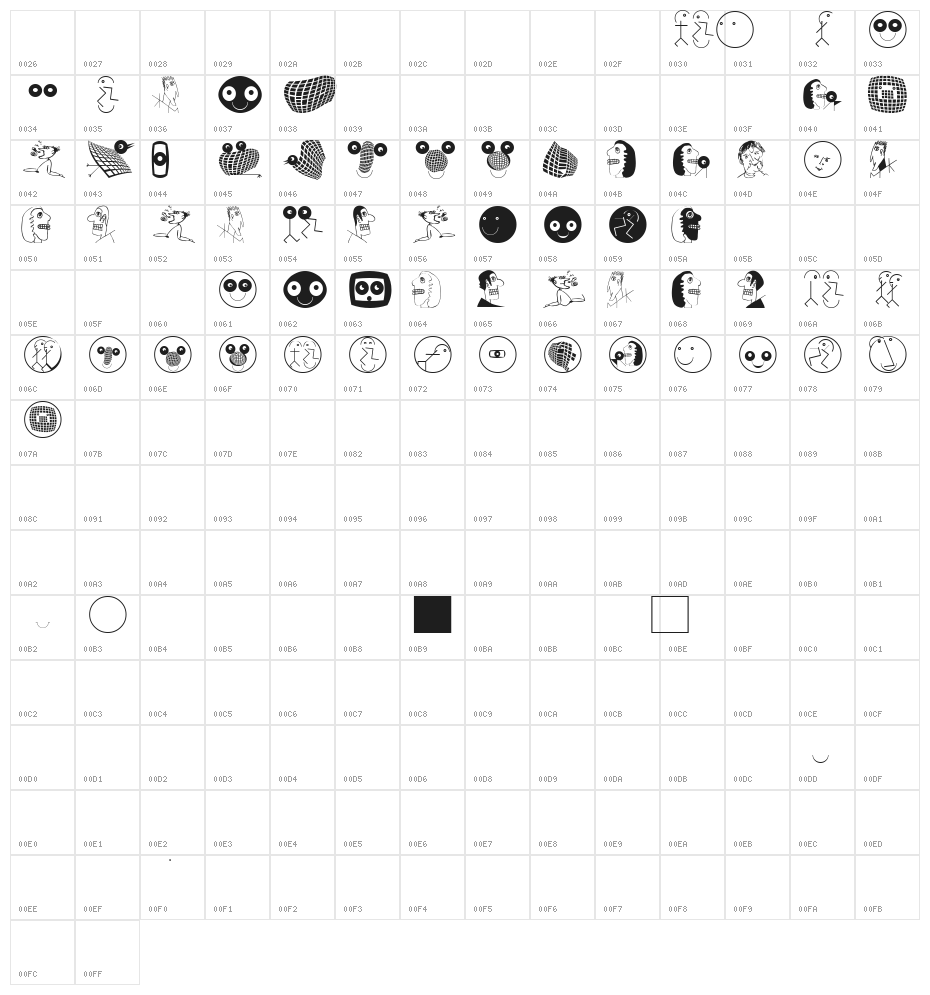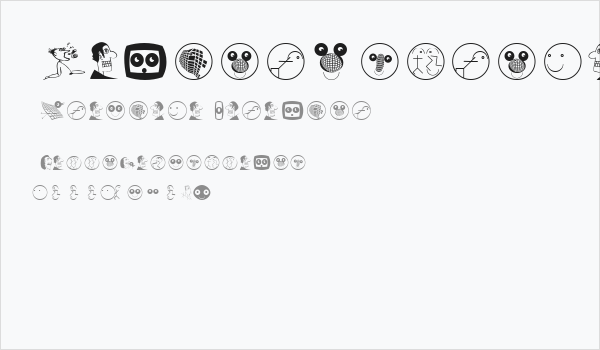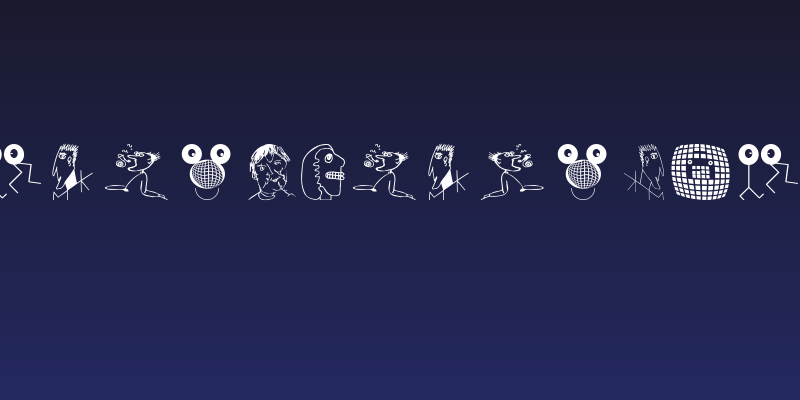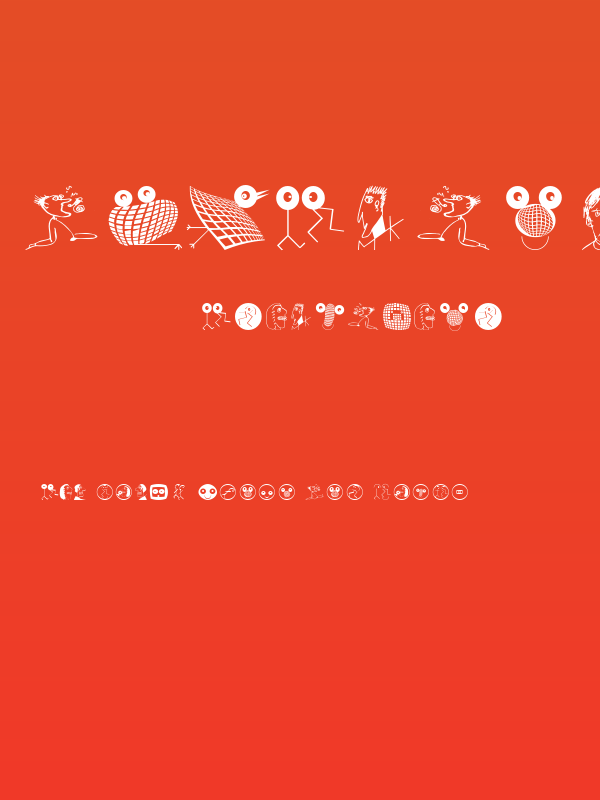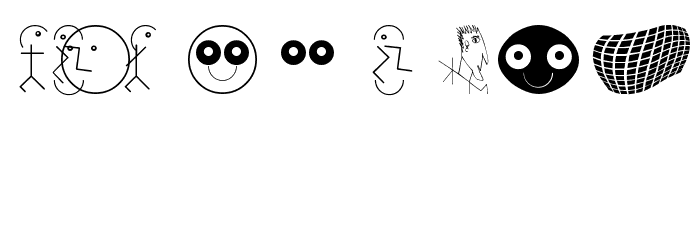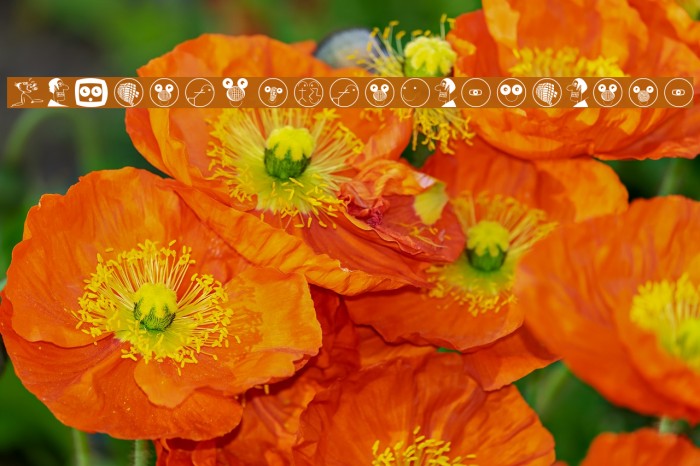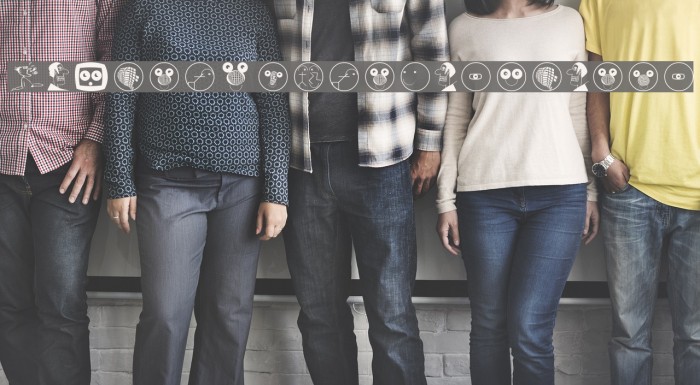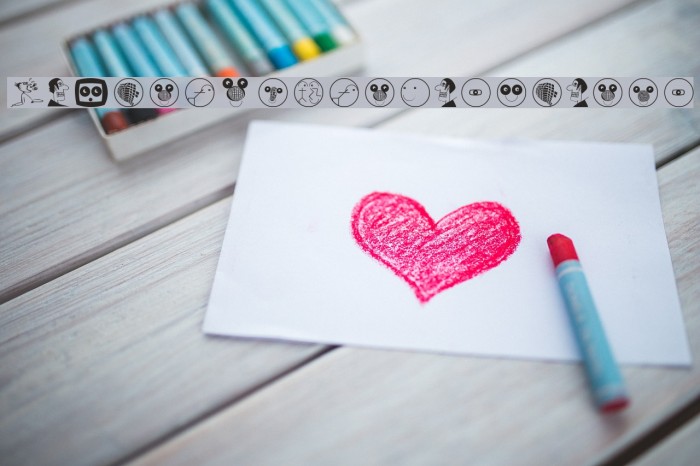
VectorImprovisations Font
VectorImprovisations Description
A highly decorative and playful font composed of abstract, cartoon-like illustrations and geometric shapes, each character rendered as a unique visual improvisation rather than traditional letterforms.
| Overall Style | Decorative, Playful, Abstract |
| Use Case | Logos, Posters, Art projects, Headlines |
| Proposed Projects | ChildrenΓ’β¬β’s books, experimental posters, album covers, art installations, creative branding. |